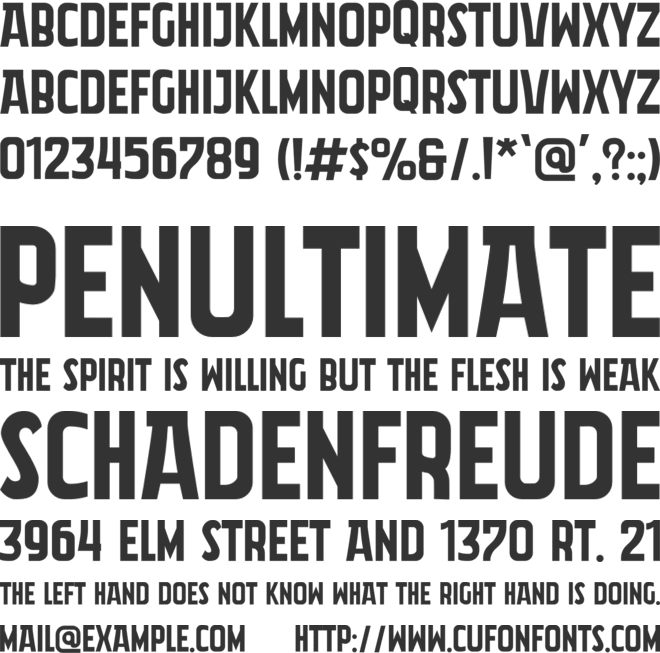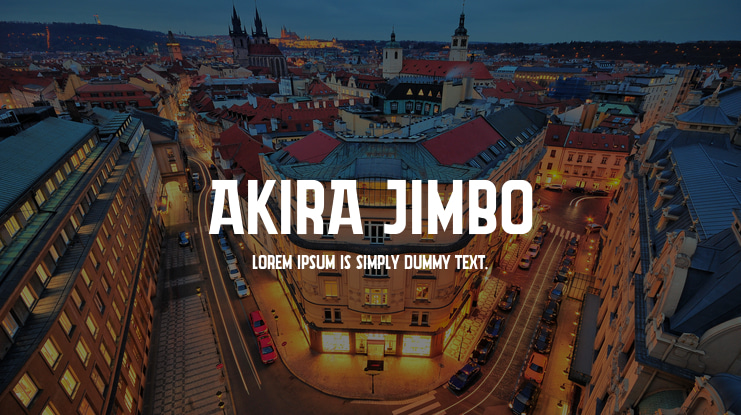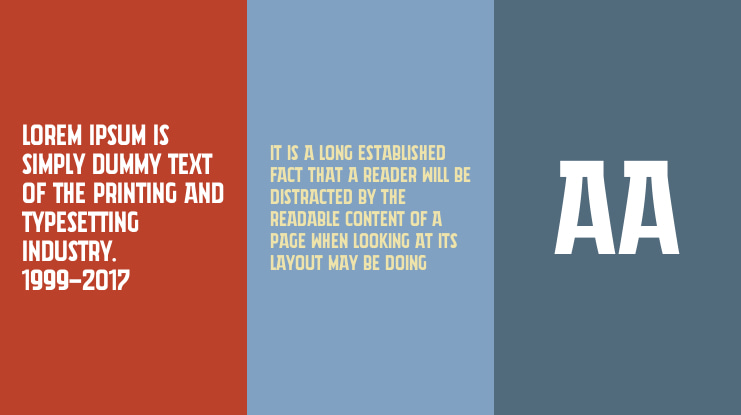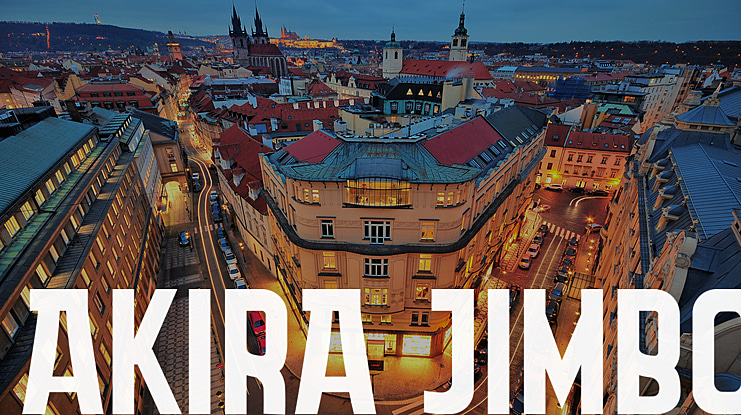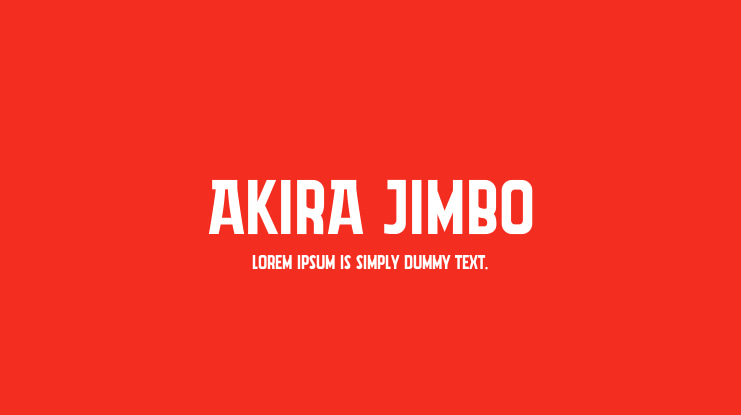
Akira Jimbo Font
Introducing Akira Jimbo ! - A vintage, retro and awesome character! With different weights, it's perfect for magazine layouts, invitations, headers, or even large-scale artwork.